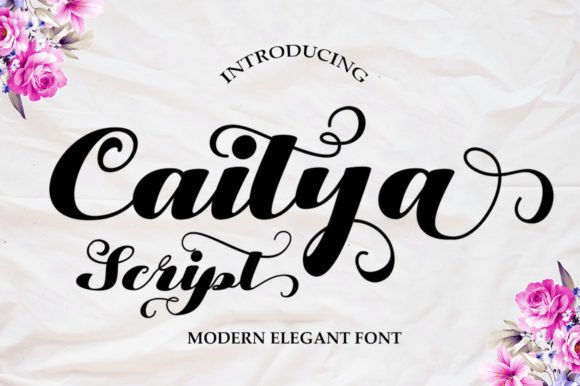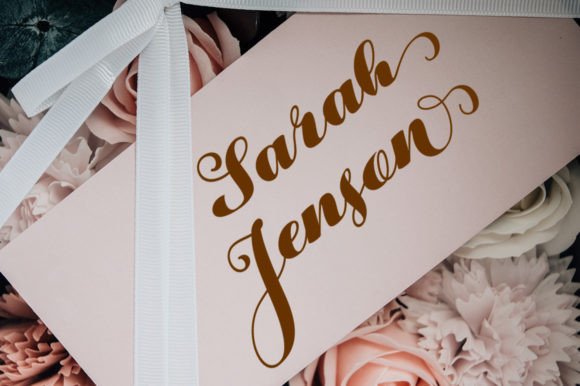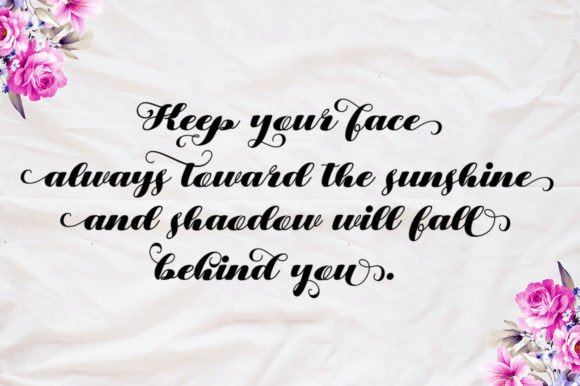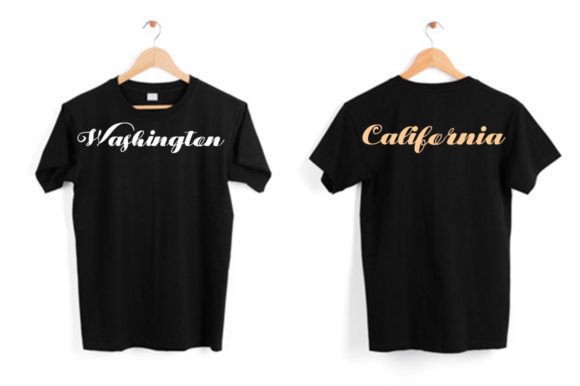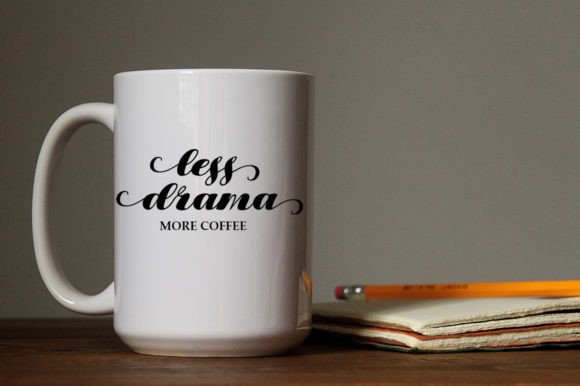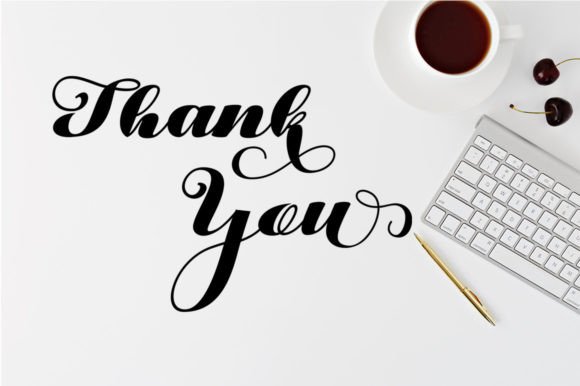
Caitya Script Font
About Caitya Script Font
Caitya Script is a bold and gorgeous handwritten font. No matter the topic, this font will be an incredible asset to your fonts’ library, as it has the potential to elevate any creation. This font is PUA encoded which means you can access the all the glyphs and ligatures with ease!